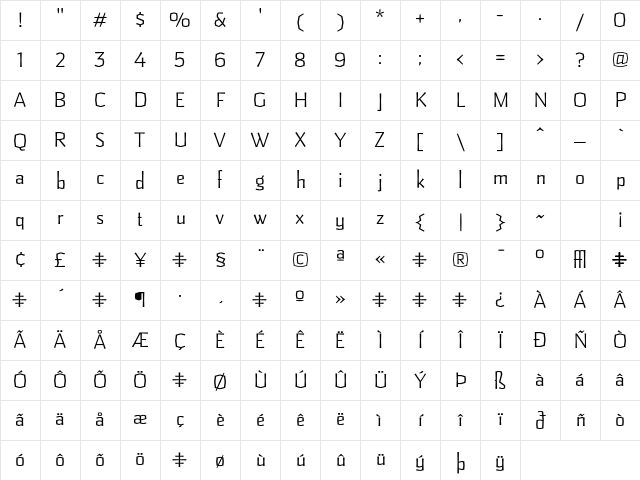
Pilsner Light
Design Context for Pilsner
Pilsner is a composed and adaptable typeface that performs quietly and consistently across a wide range of design contexts. Its slender proportions lend an understated elegance to any composition.